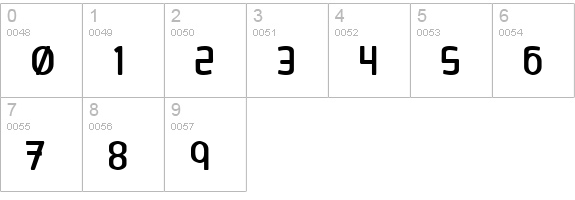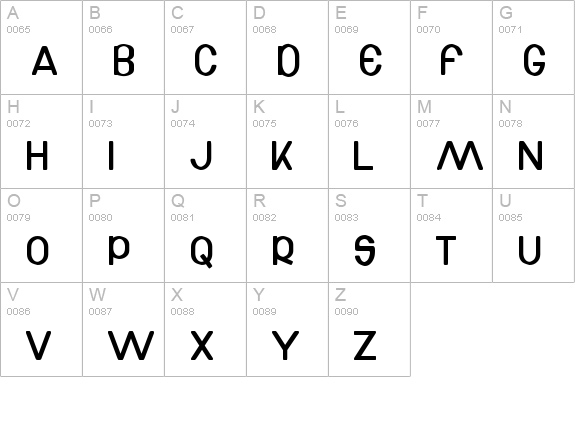
Bottix Font Details
Introducing Bottix font - a modern and sleek typeface that exudes elegance and sophistication. With its clean lines and contemporary style, Bottix is perfect for a wide range of design projects, from branding to editorial design. This versatile font is sure to make a statement and elevate any design it is used in. What sets Bottix font apart is not only its stunning aesthetic, but also the fact that it is available for free download at FontsMarket.com. That's right, you can access this premium font without any cost, making it a must-have addition to your font collection. Don't miss out on the opportunity to enhance your projects with Bottix font - download it today and see the difference it can make!